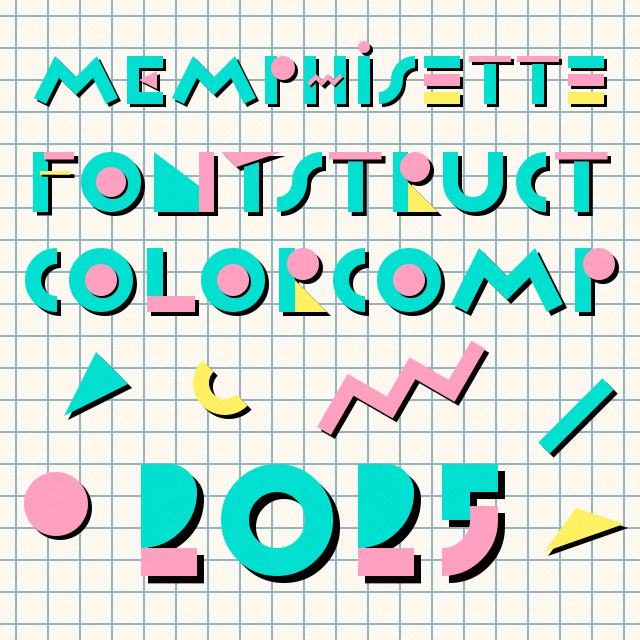
It is very nice, I like the double depth shade effect on the overlaping color segments.
Great font. These shadows on overlapping shapes work really well!
What a wonderful 90s feeling! What memories! Good luck.
An instant FAV! Beautiful.
Absolutely love the throwback style of this font~
i uess there're noe 2 fonts in the comp based of te 90's
Beautiful work. Congratulations. 10/10
Love the 90's theme to it!
Highly effective retro font with skillful execution.
This is certaintky amongst the coolest looking Fontstructs I have have ever seen mate.
I have my winner right here! 10/10
Congratulations! FontStruct Staff have deemed your FontStruction worthy of special mention. “Memphisette” is now a Top Pick.
The people have spoken, congratulations on such a stellar (and my personal favorite) font! Felt the need to chime in again on how well executed the design is, hats off to you~
A good cartoon font!
Congratulations on this well-deserved award at ColorComp and TP, dear Yautja!